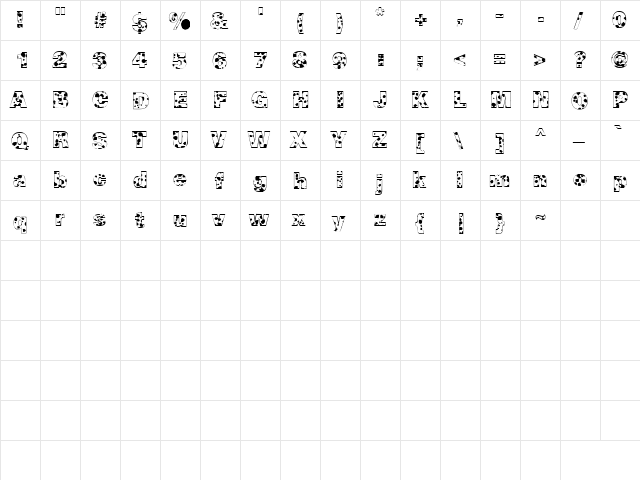
CowSpots Regular
Design Context for CowSpots Typeface
CowSpots is a composed and adaptable typeface that performs quietly and consistently across a wide range of design contexts.